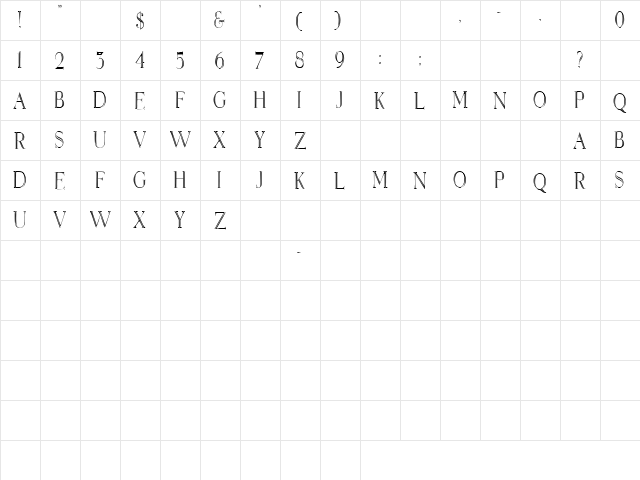
Night In The Ruts 1 Regular
Night In The Ruts 1 takes a measured approach to typography — its balanced proportions and neutral character make it a reliable workhorse for both digital and print work.